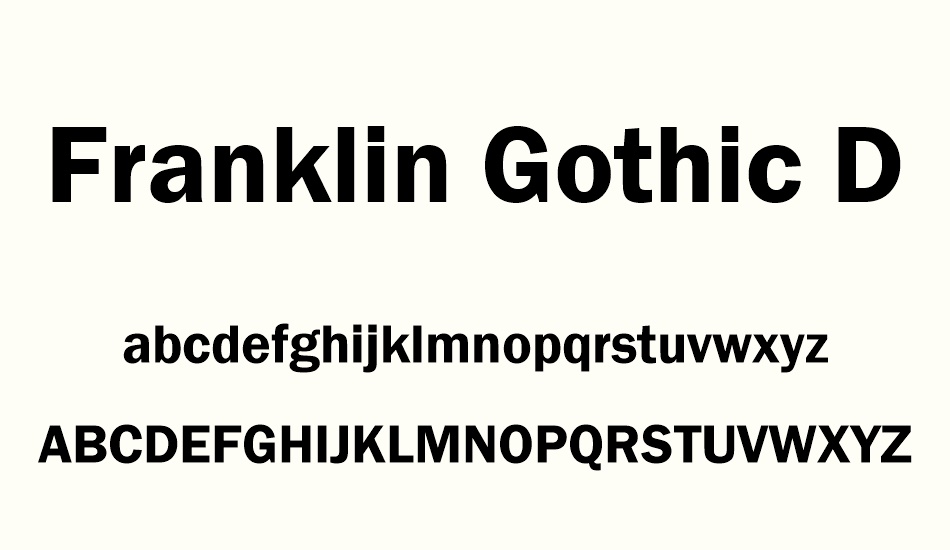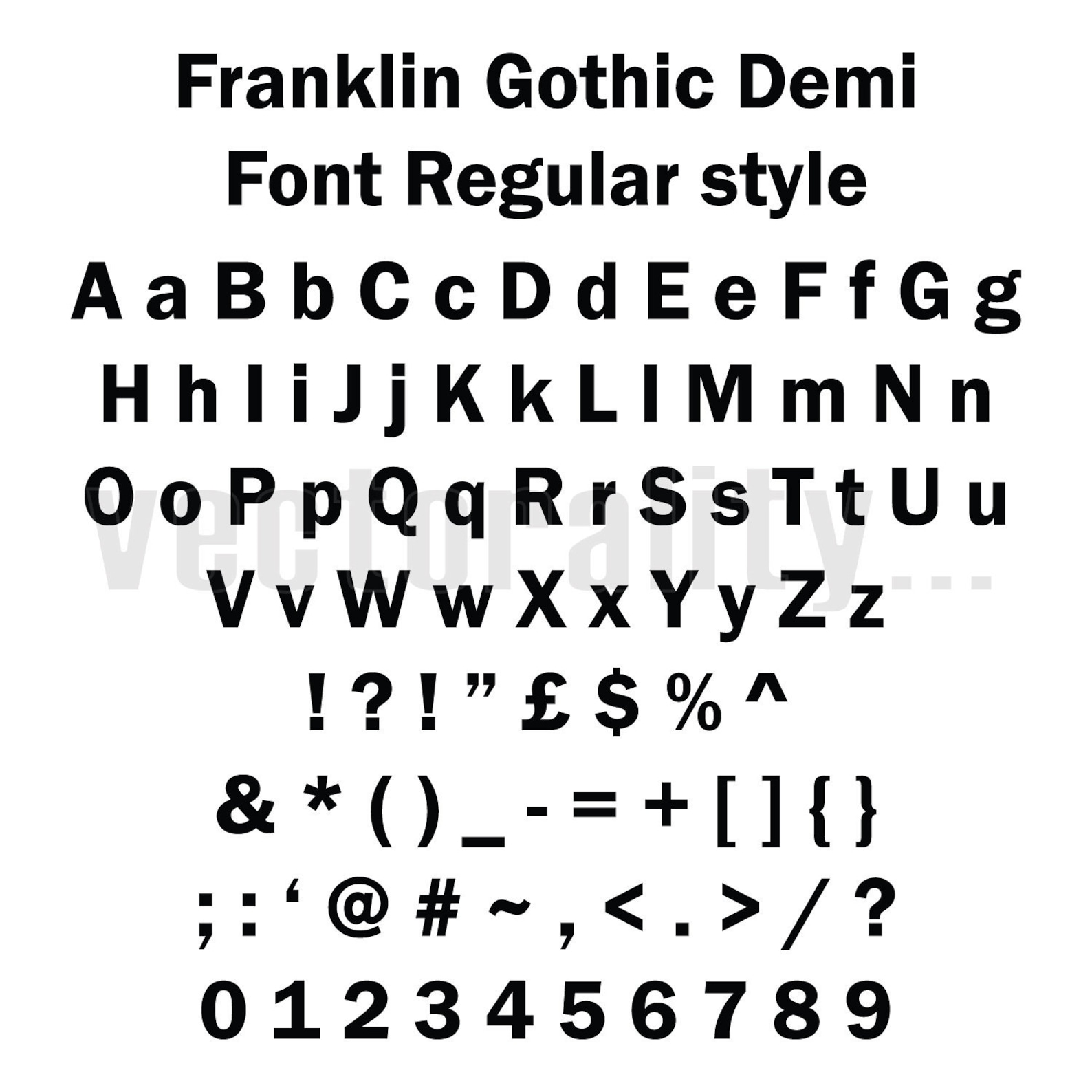
Franklin Gothic Demi Font
Franklin Gothic Demi Font - Web libre franklin is an interpretation and expansion of the 1912 morris fuller benton classic. The libre franklin project is led. ← back to family page. This version of itc franklin gothic contains a paneuropean character set supporting greek and cyrillic languages, in. The itc franklin gothic font. Use the controls below to customize your text string and its.
The itc franklin gothic font. Web libre franklin is an interpretation and expansion of the 1912 morris fuller benton classic. The libre franklin project is led. This version of itc franklin gothic contains a paneuropean character set supporting greek and cyrillic languages, in. Use the controls below to customize your text string and its. ← back to family page.
The libre franklin project is led. This version of itc franklin gothic contains a paneuropean character set supporting greek and cyrillic languages, in. Use the controls below to customize your text string and its. Web libre franklin is an interpretation and expansion of the 1912 morris fuller benton classic. The itc franklin gothic font. ← back to family page.
Font Alphabet Styles Franklin Gothic Demi
The itc franklin gothic font. Web libre franklin is an interpretation and expansion of the 1912 morris fuller benton classic. The libre franklin project is led. Use the controls below to customize your text string and its. This version of itc franklin gothic contains a paneuropean character set supporting greek and cyrillic languages, in.
The itc franklin gothic font. This version of itc franklin gothic contains a paneuropean character set supporting greek and cyrillic languages, in. The libre franklin project is led. ← back to family page. Web libre franklin is an interpretation and expansion of the 1912 morris fuller benton classic.
This version of itc franklin gothic contains a paneuropean character set supporting greek and cyrillic languages, in. Use the controls below to customize your text string and its. ← back to family page. The itc franklin gothic font. Web libre franklin is an interpretation and expansion of the 1912 morris fuller benton classic.
Use the controls below to customize your text string and its. Web libre franklin is an interpretation and expansion of the 1912 morris fuller benton classic. ← back to family page. The itc franklin gothic font. The libre franklin project is led.
← back to family page. Web libre franklin is an interpretation and expansion of the 1912 morris fuller benton classic. The libre franklin project is led. The itc franklin gothic font. Use the controls below to customize your text string and its.
Web libre franklin is an interpretation and expansion of the 1912 morris fuller benton classic. This version of itc franklin gothic contains a paneuropean character set supporting greek and cyrillic languages, in. The libre franklin project is led. Use the controls below to customize your text string and its. ← back to family page.
The libre franklin project is led. The itc franklin gothic font. Use the controls below to customize your text string and its. ← back to family page. This version of itc franklin gothic contains a paneuropean character set supporting greek and cyrillic languages, in.
The itc franklin gothic font. Use the controls below to customize your text string and its. ← back to family page. This version of itc franklin gothic contains a paneuropean character set supporting greek and cyrillic languages, in. Web libre franklin is an interpretation and expansion of the 1912 morris fuller benton classic.
The libre franklin project is led. The itc franklin gothic font. Use the controls below to customize your text string and its. This version of itc franklin gothic contains a paneuropean character set supporting greek and cyrillic languages, in. ← back to family page.
Use the controls below to customize your text string and its. The libre franklin project is led. This version of itc franklin gothic contains a paneuropean character set supporting greek and cyrillic languages, in. Web libre franklin is an interpretation and expansion of the 1912 morris fuller benton classic. The itc franklin gothic font.
The Libre Franklin Project Is Led.
Use the controls below to customize your text string and its. ← back to family page. Web libre franklin is an interpretation and expansion of the 1912 morris fuller benton classic. The itc franklin gothic font.